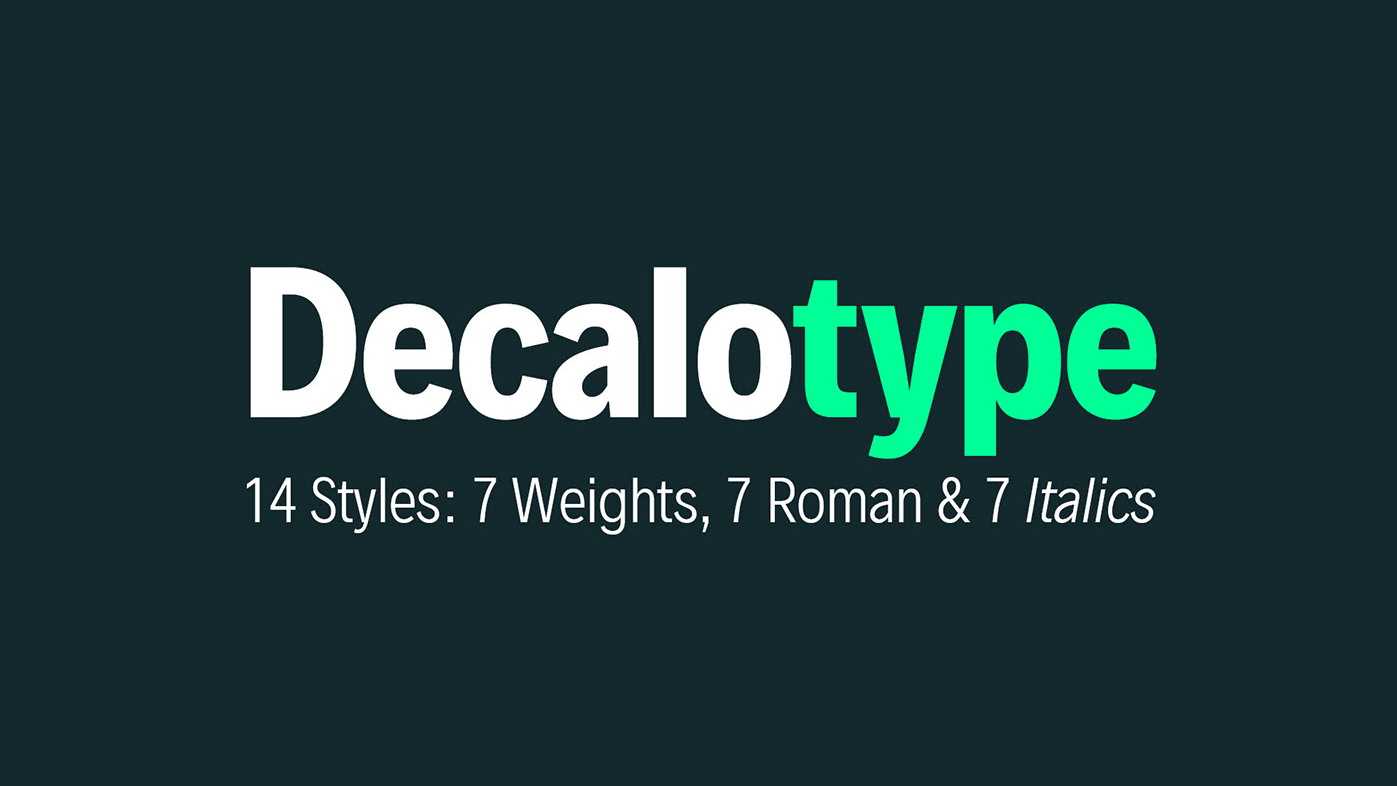
Download Decalotype typeface, a multi-purpose, narrow and sturdy sans serif font family with 14 styles. Decalotype works well both for texts and headlines, fits for editorial and display use.
Designer: Alfredo Marco Pradil